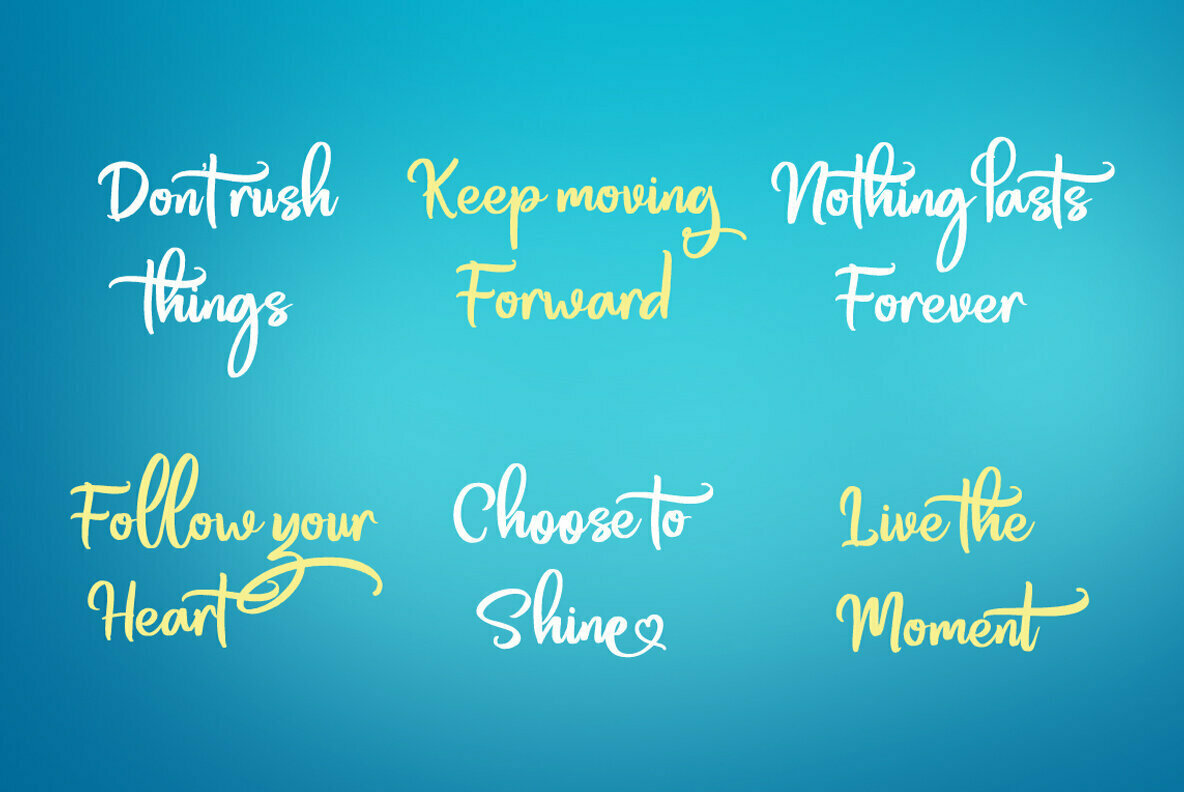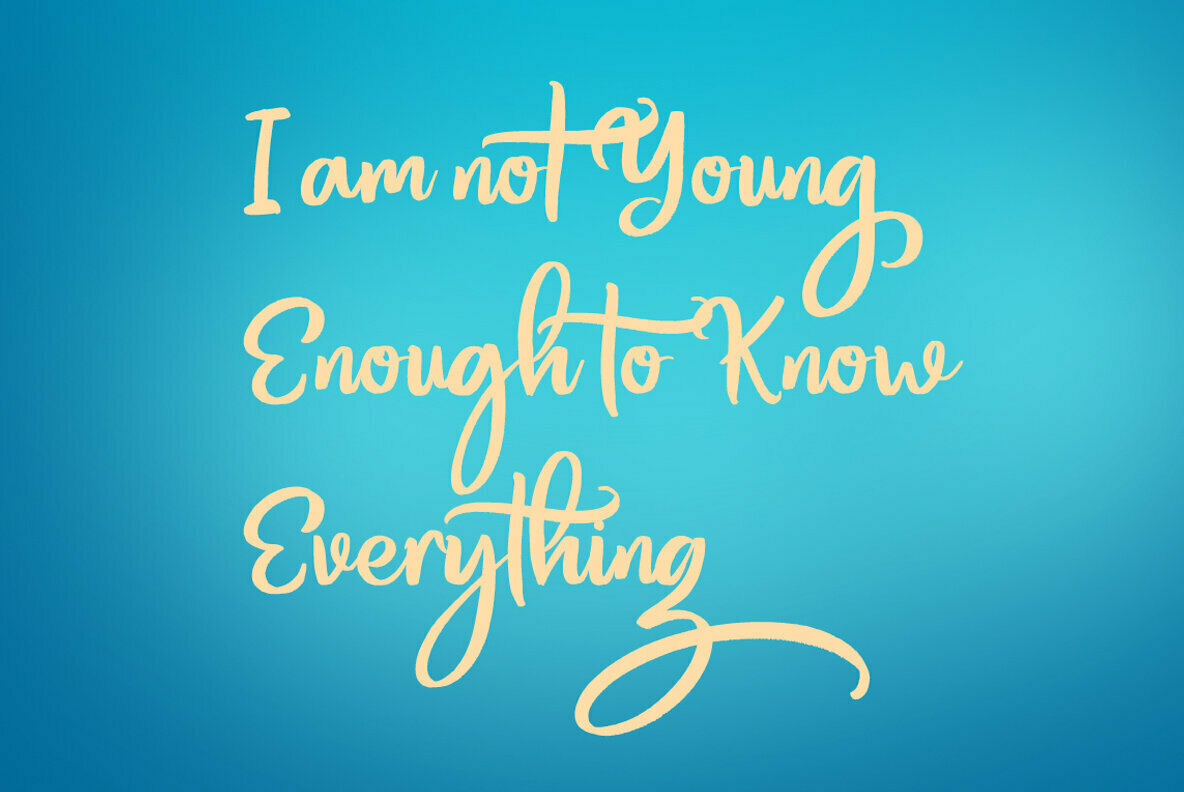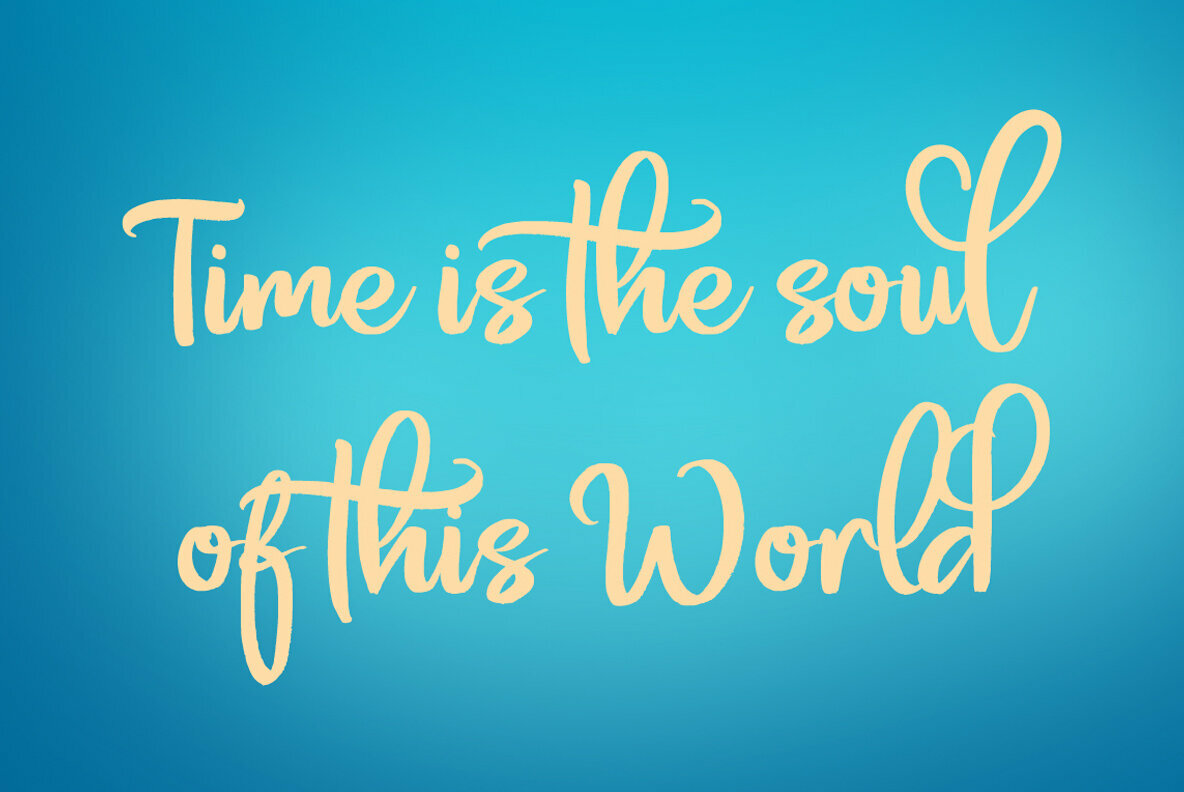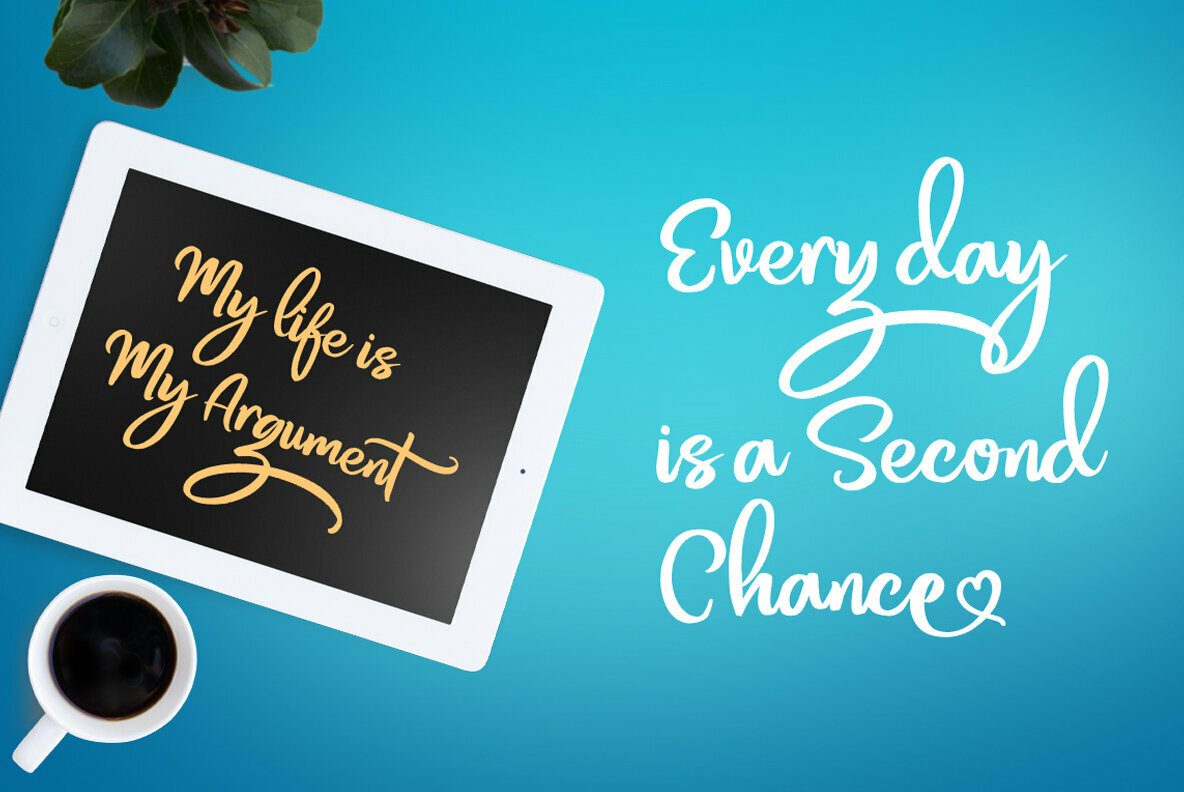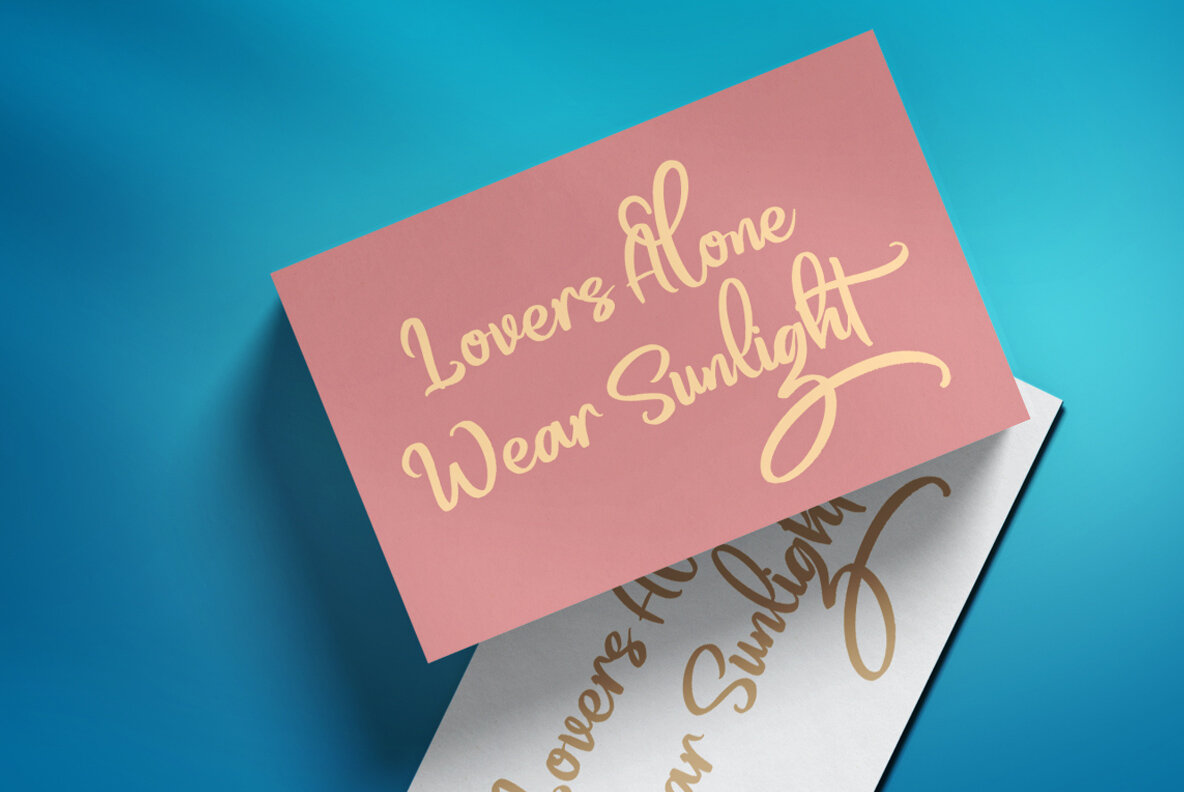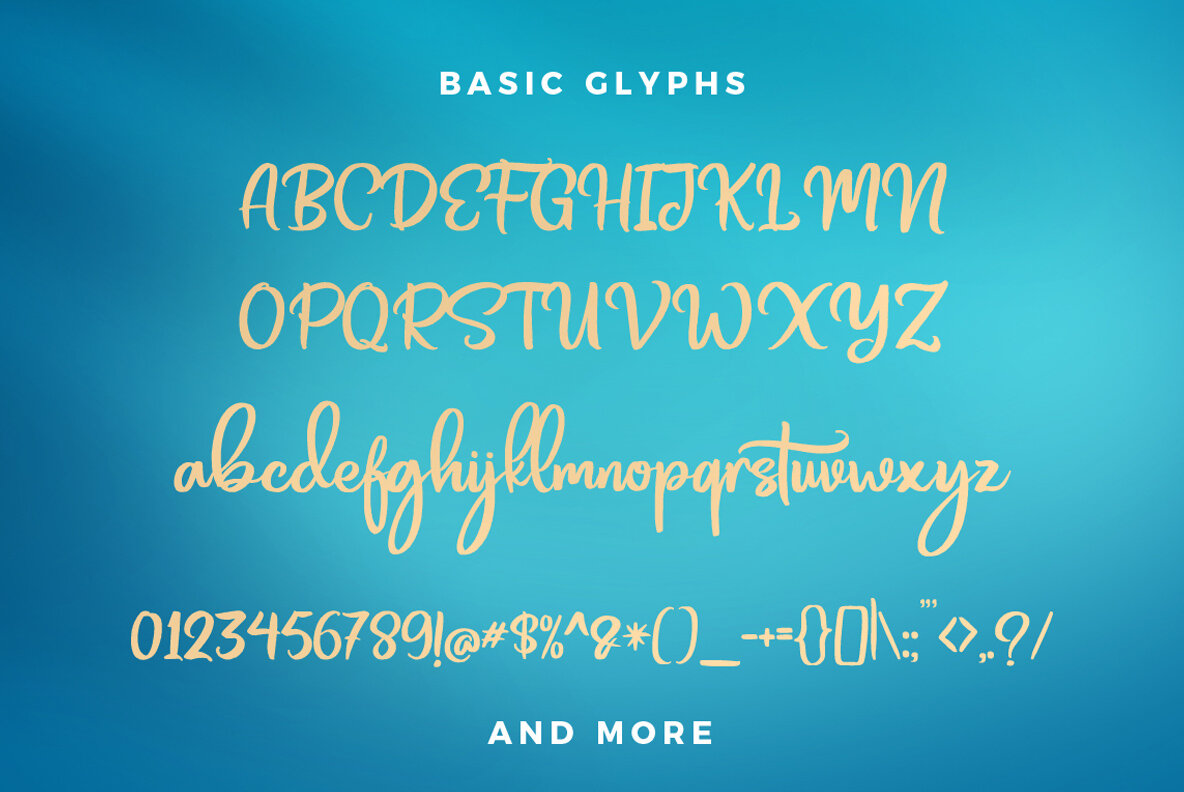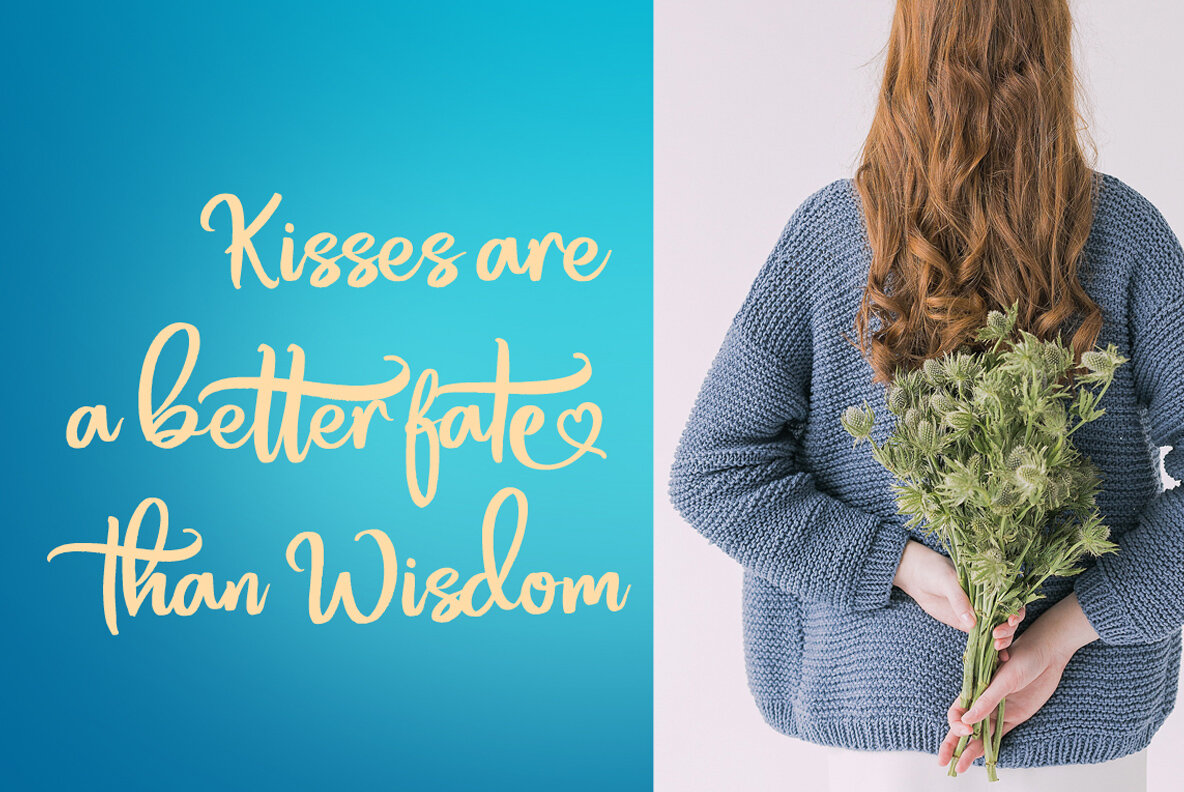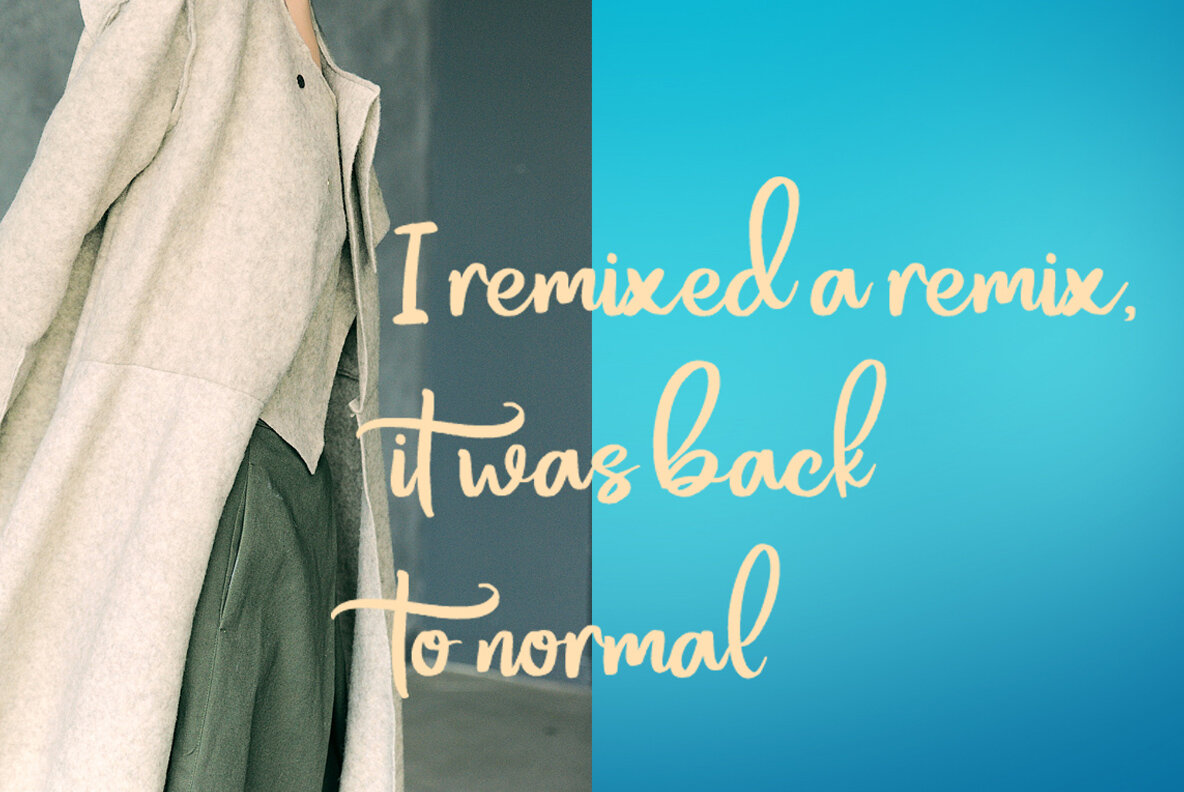
Southwave Font
Southwave
Southwave is a script font that brings a modern calligraphy style to your design repertoire. With its handlettering aesthetic, Southwave offers a versatile choice for various creative applications such as wedding invitations, event branding, t-shirt design, logos, and more.Southwave: A Script Font with Handlettering Flair